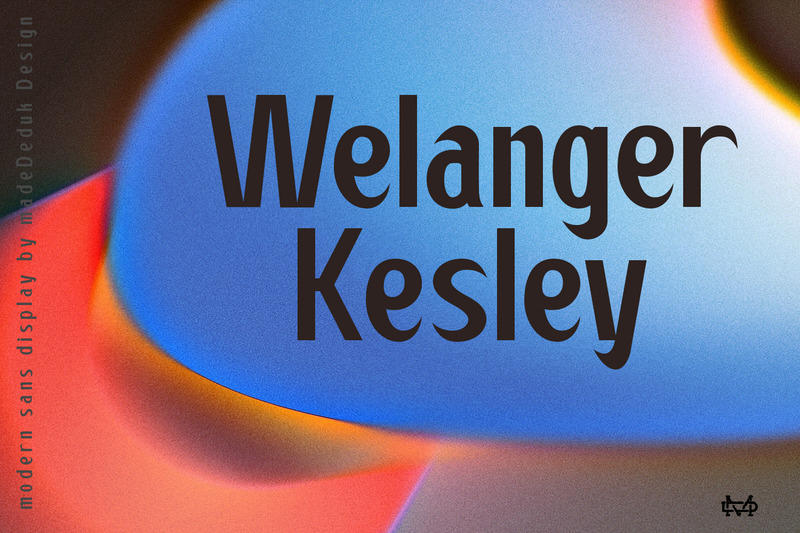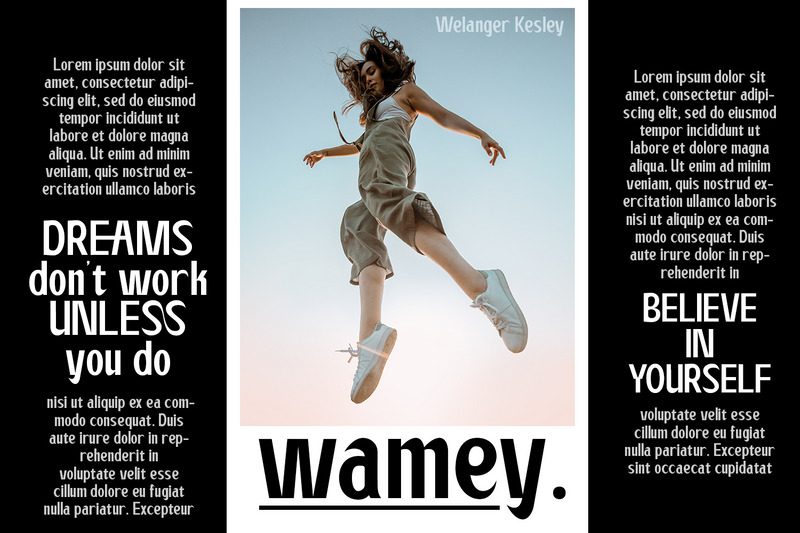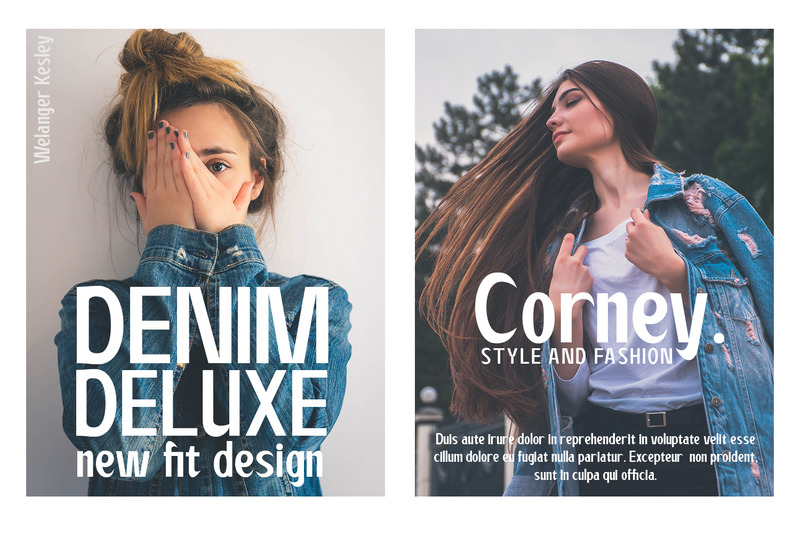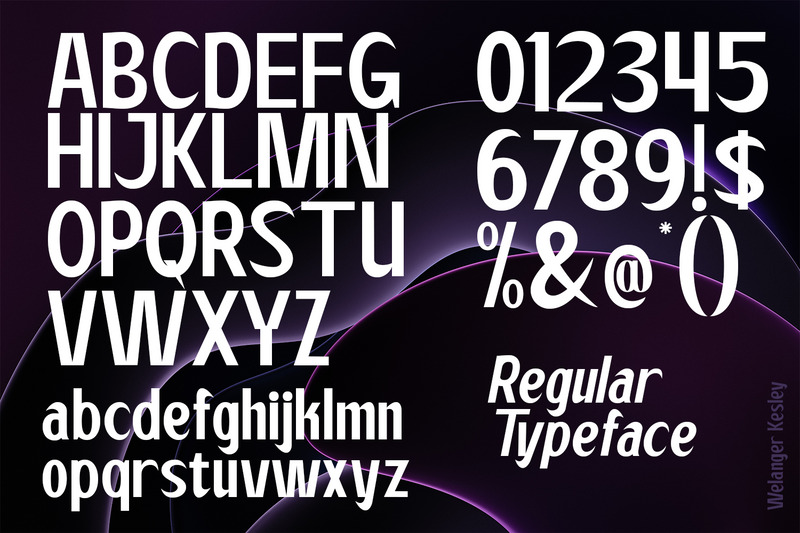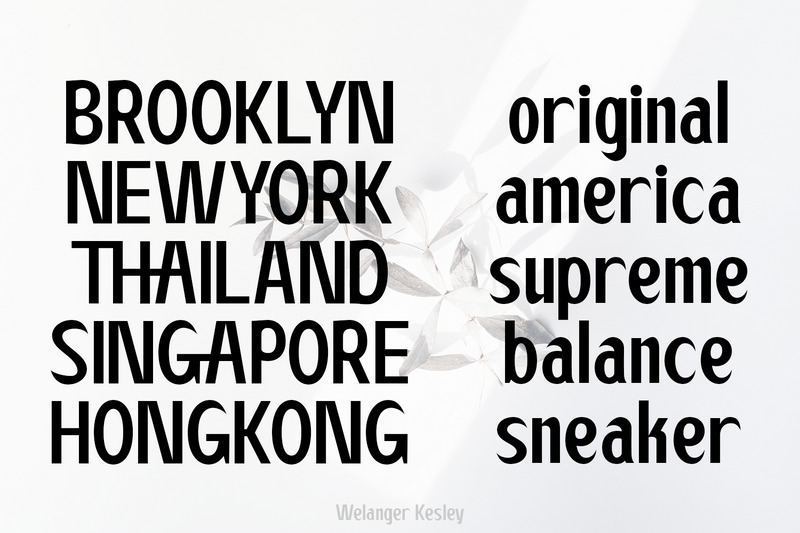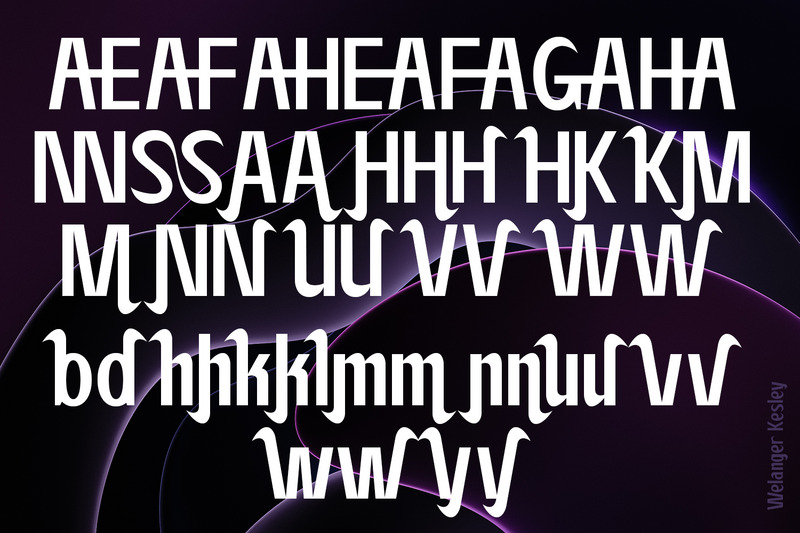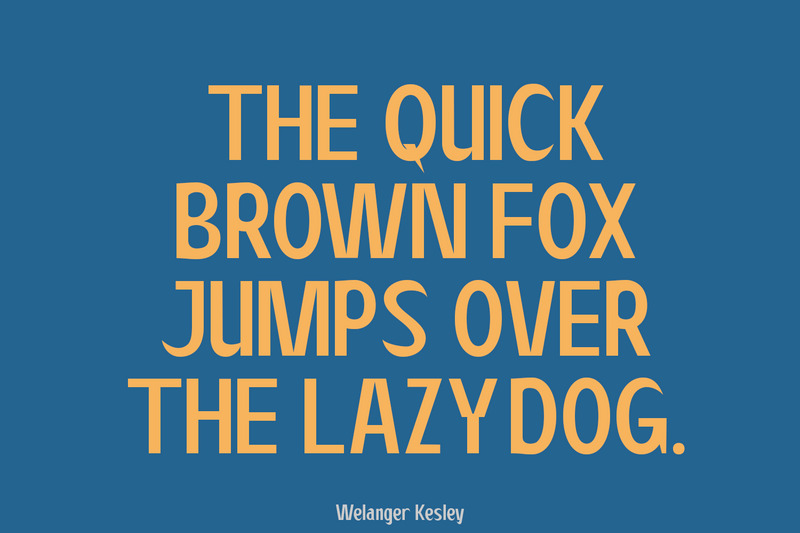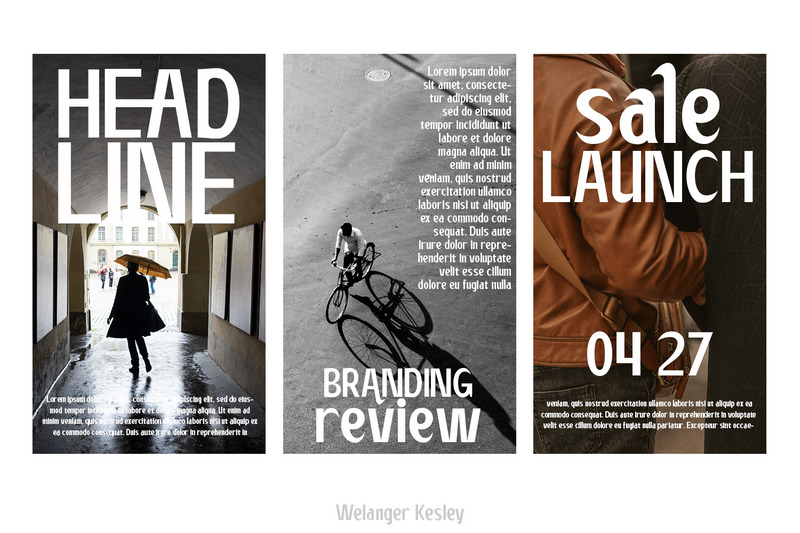
Welanger Kesley - Display Font
Introducing Welanger Kesley is a Display Sans, use this font for any branding, product packaging, invitation, quotes, label, poster, logo etc.
•  Uppercase & Lowercase
•  Number & Symbol
•  International Glyphs
•  Multilingual support
•  Alternative
•  Ligature